Recruiters see hundreds of resumes per week.This means no matter how well your resume is written, an initial glance will dictate whether they take the time to find out more about you.
Since designing an attractive CV is key to creating a great first impression, it’s crucial to select the best resume fonts.That’s why, in this guide, we look at some top choices, considering classic fonts and those that will help you stand out in a crowded market.
Why does font choice matter?
Research shows they only spend between 6 to 8 seconds looking at each resume they receive. For them to get a quick understanding of what you’re all about, you need to make yours super readable. And as we explore in the next section, this means some fonts are better than others.
It’s also important to remember that while some may look fantastic when handing a printed CV over, they might display poorly on smaller computer screens. Be sure to check your fonts across several devices to ensure recruiters and employers can easily pick out key information.
The best font choices in different industries
In many industries, the best resume fonts are those that convey professionalism and a sense of tradition. For example, industries like law and finance often appreciate classic Serif fonts such as Times New Roman. Studies even show that fonts that are familiar to specific readers can boost comprehension and speed up reading.
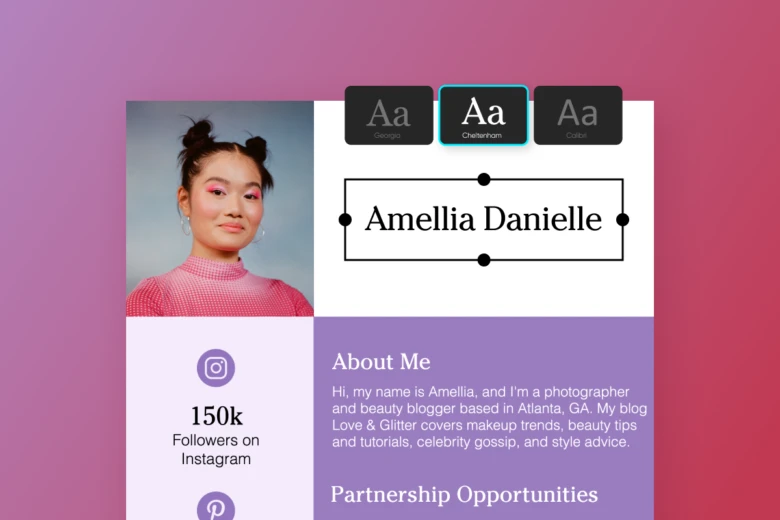
At the same time, however, these traditional fonts can feel overused and lead to applications not standing out. In more creative or modern industries, it’s better to explore styled fonts, as we do later in the article.
When selecting your fonts, you also need to keep in mind Applicants Tracking Systems (ATS). ATS software is often used by companies to scan your resume and allow hiring managers to shortlist candidates.
While some styled fonts can be paired with classic fonts for things like headings or your name, when used in bulk they can make your resume difficult for the ATS to scan. For optimal results, go for styled fonts when sending your resume to a client directly and more standard fonts when uploading to an ATS.
Nine best fonts to use for resumes
We’ve created this quick guide to help you save time when choosing fonts for your resume…
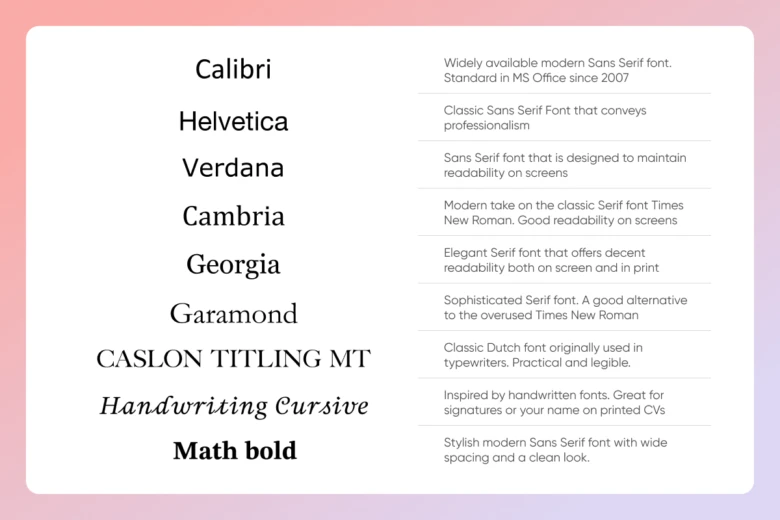
The best resume font categories
The best fonts for CVs generally come from two main categories. Sans Serif or Serif. There are also styled fonts that can help you stand out.
Sans-Serif Fonts
Sans Serif are clean, modern fonts that are designed to be readable on all digital screens. These are a great go-to for creating a resume that you upload to an ATS.
- Calibri: The staple option. In 2007 Calibri Replaced Times New Roman and Arial in Word and PowerPoint. Its rounded nature is designed to be soft and inviting for readers while maintaining excellent readability on digital screens.
- Helvetica: Switzerland’s stamp on modern graphic design in fonts. Developed in 1957 but still popular today, Helvetica offers an understated and artsy, but still professional version of a Sans Serif font.
- Verdana: Designed with generous spacing to maintain good readability at smaller sizes on lower-resolution screens. Its clean looks make it one of the best fonts for CV main body text.
Serif Fonts
Serif fonts like Times New Roman have a more traditional look. This makes them popular in formal sectors such as legal and finance.
- Cambri: Sturdy font with high contrast to maintain high readability in both small and large sizes. This modern take on Times New Roman is the best font for CVs if you’re looking for a classic look.
- Georgia: Based on print typeface designs, this elegant Serif font was originally designed in 1993. Its defining features are that it reads well in smaller sizes and on low-resolution screens.
- Garamond: Designed in Sixteenth-century Paris, this classic font has been popular for centuries, especially for use in the main body text of books. Garamond offers a sophisticated look and is a great alternative to Times New Roman.
Styled Fonts
Here are some of the best styled fonts for CVs. You can also experiment with our font generator to find more.
- Carlson Titling: All caps display font defined by its ability to fill in smaller spaces comfortably. Popular for logos, it’s a good option for headings on a CV as it’s understated, but still stands out.
- Handwriting: Designed to look like handwritten text in cursive. Can be utilized for features like your name on a printed CV in casual sectors like design, or, as the digital signature of a referee in your supporting information
- Math bold: Professional-looking bold typeface similar to Times New Roman but with more gravitas. Ideal for titles such as the names of previous places of work.
Finding the best fonts for CVs
When you’re applying for your dream job there might be a hundred other people submitting their old-fashioned Times New Roman resumes.